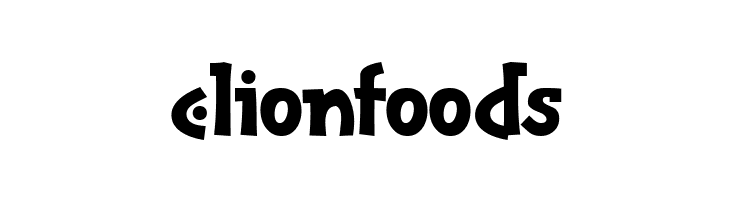
Chicagogo Font
A bold, geometric font with a modern and angular design.
Byte Caps Font
A playful, tech-inspired font with bold, blocky characters and digital motifs.
Savant Barden DemiBold Font
Intellecta Design
A bold, geometric font with unique cutouts and modern appeal.
X 1Round2Serif Font
Lollibomb - www.lollibomb.com/
A modern serif font with elegant, rounded serifs and a balanced design.
Timesturn Font
Lollibomb - www.lollibomb.com/
A classic serif font with a playful, tilted design.
Tothepoint ExtraBold Font
Lollibomb - www.lollibomb.com/
A bold, playful font with whimsical, dynamic characters.
Richter Font
Lollibomb - www.lollibomb.com/
A bold, spiky font with a dynamic and energetic appearance.
PalatinaTurner Bold Font
Lollibomb - www.lollibomb.com/
A bold, playful font with a whimsical and artistic style.